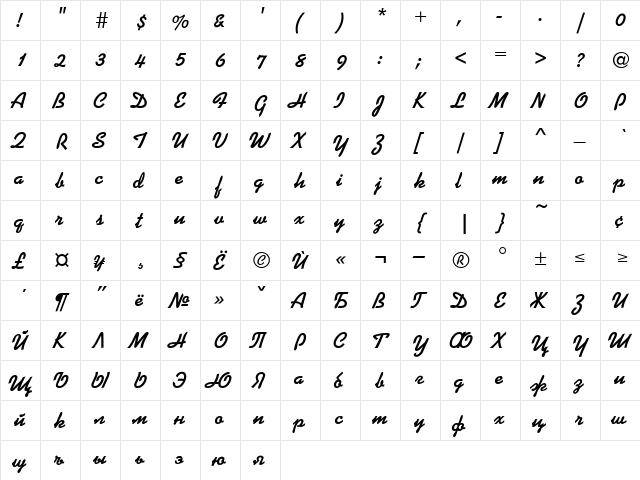
Kaliakra Regular Font Preview
Kaliakra Regular
Kaliakra Regular Font Details
Design Context for Kaliakra Typeface
Kaliakra takes a measured approach to typography — its balanced proportions and neutral character make it a reliable workhorse for both digital and print work.